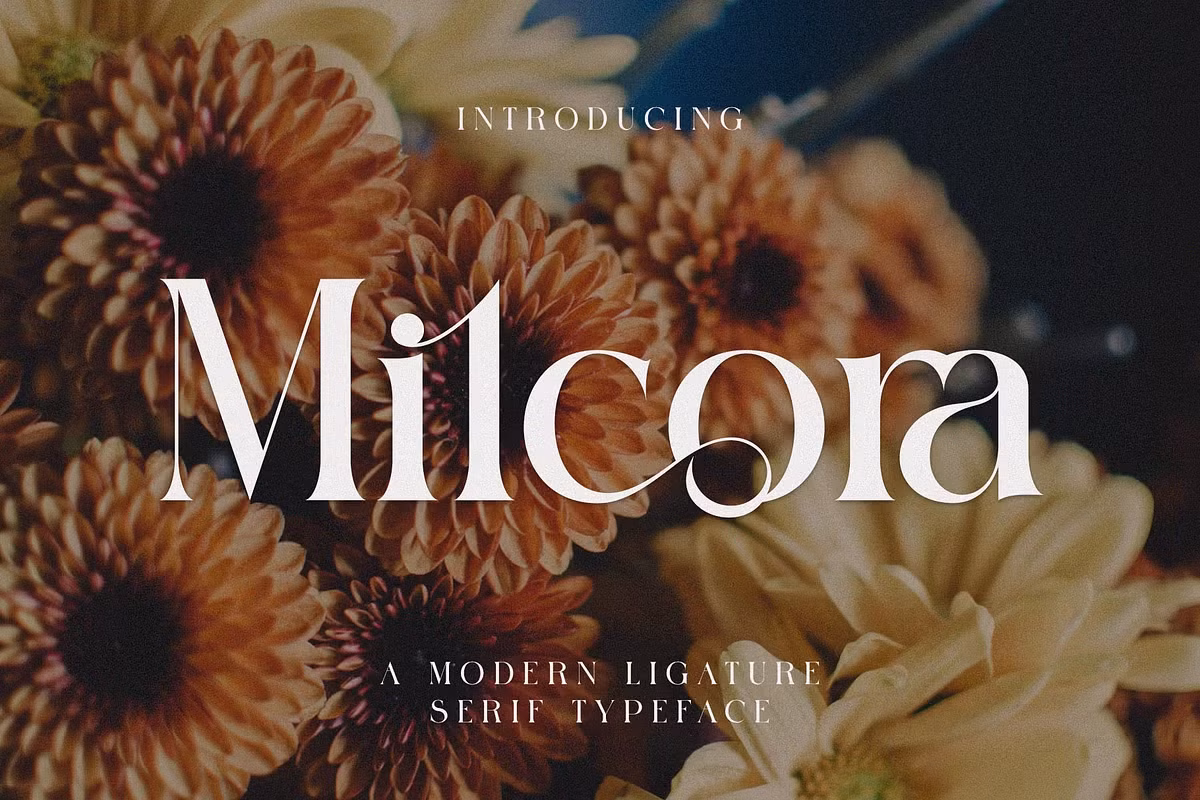
Milcora Modern Ligature Serif Free Download
Milcora Modern Ligature Serif Font Free Download
Please note, to use this font for commercial purposes, you must purchase the full version. Milcora is a sleek and elegant modern serif font featuring unique ligatures that add sophistication and style to any design. Perfect for branding, logos, editorial designs, and high-end projects, this font brings a refined, contemporary feel with its clean lines and artistic ligatures. Whether you're working on a luxury brand, an elegant invitation, or a creative marketing campaign, Milcora elevates your work with its timeless charm. Test it out and enjoy free download access for personal use. Experience the beauty and elegance of Milcora Modern Ligature Serif Font Free Download before purchasing the commercial license. Add a modern, stylish touch to your designs with Milcora.